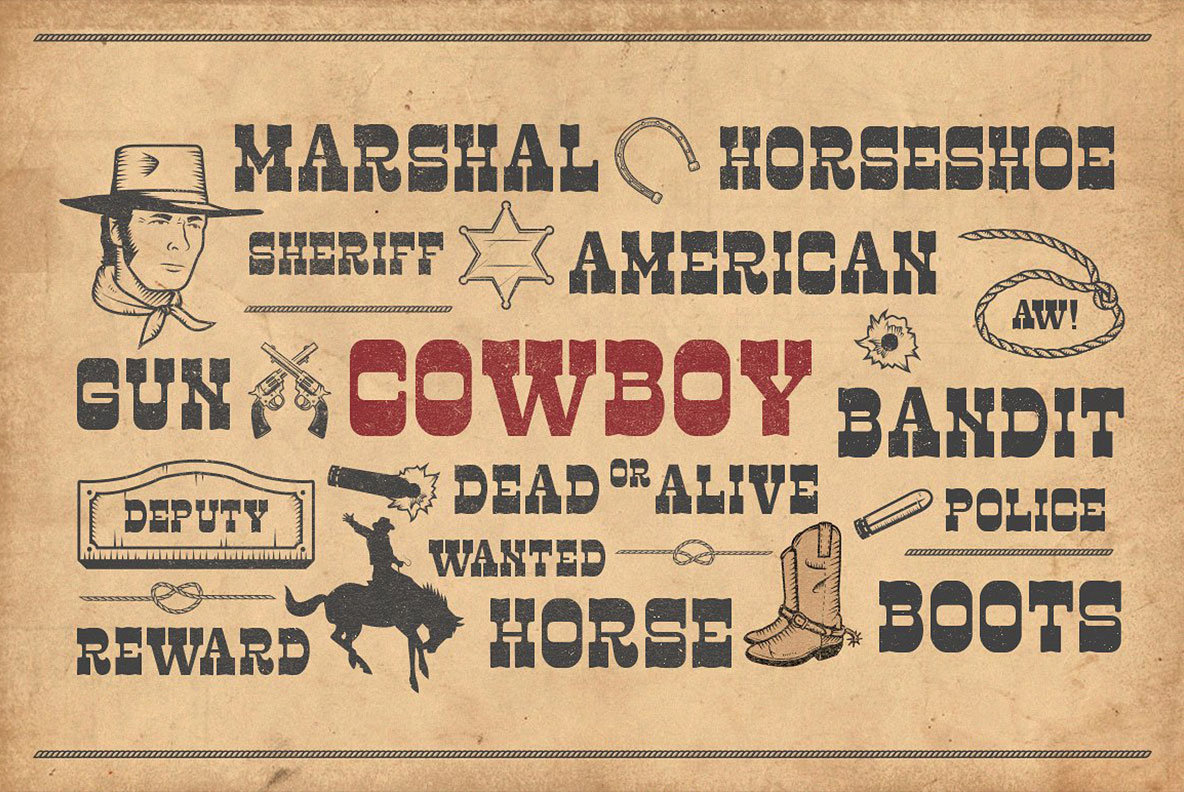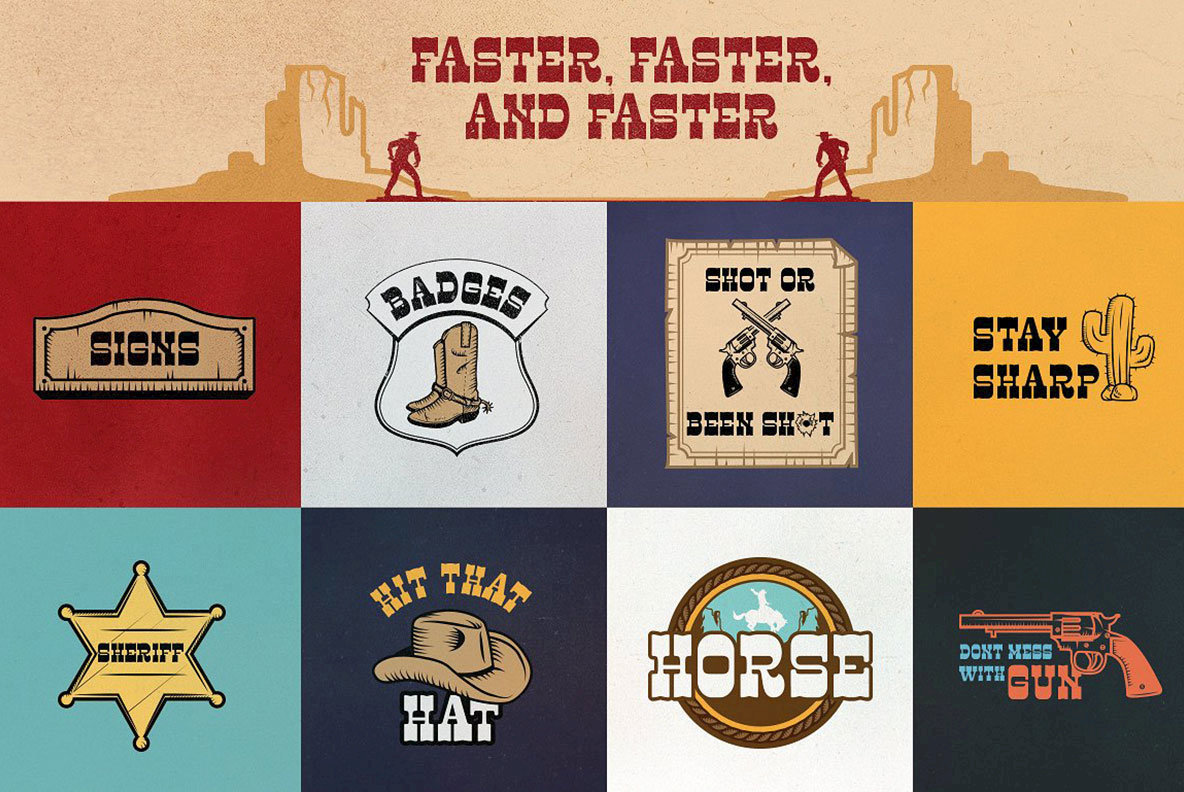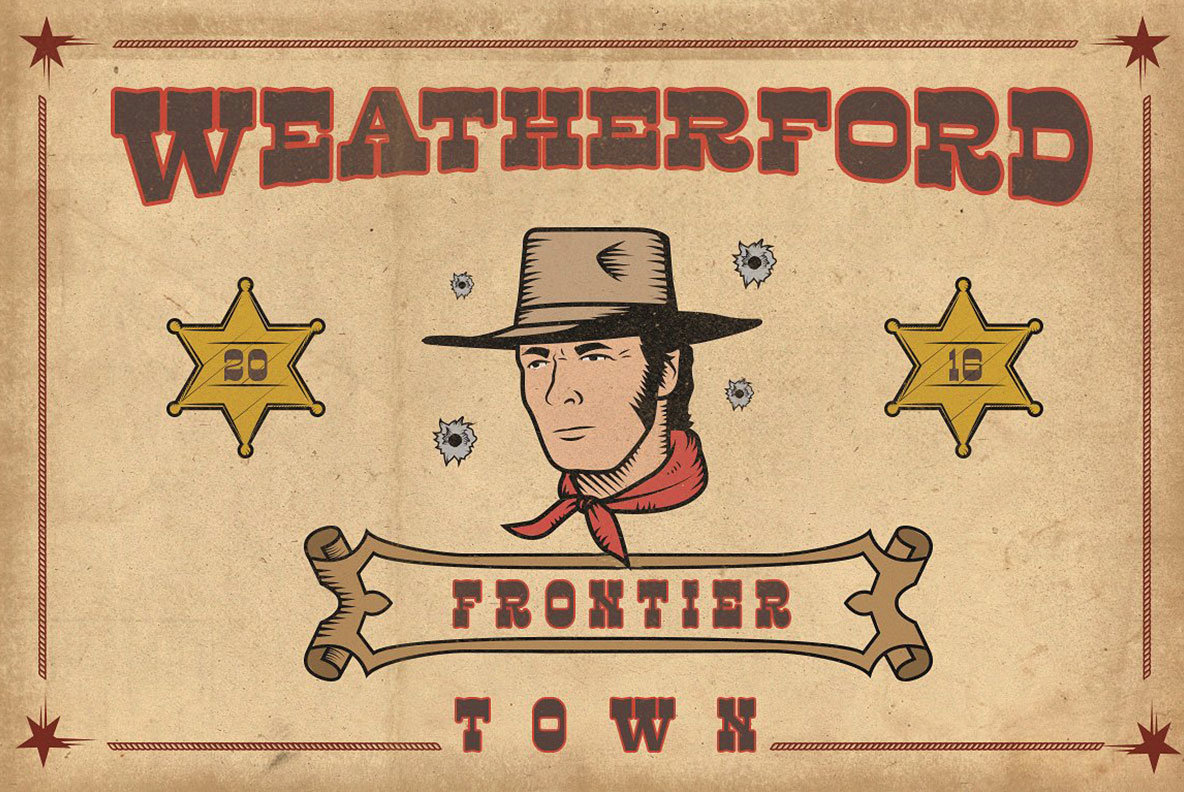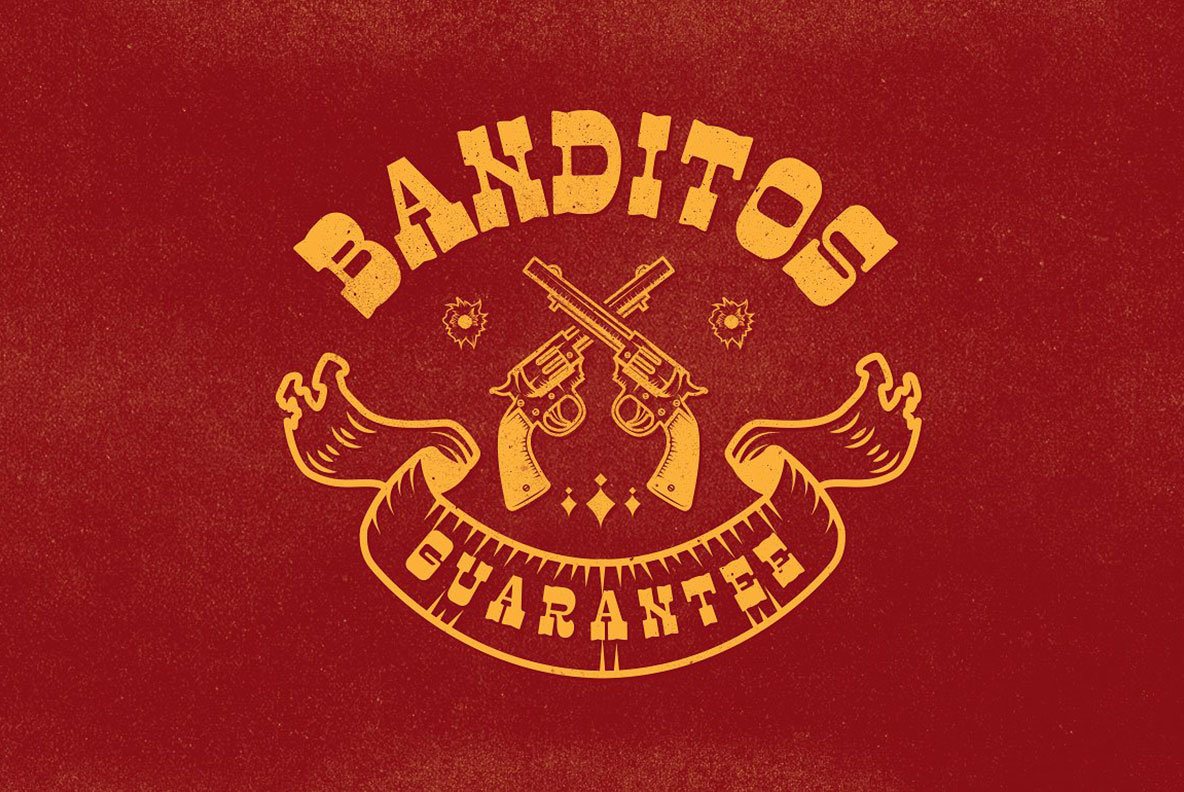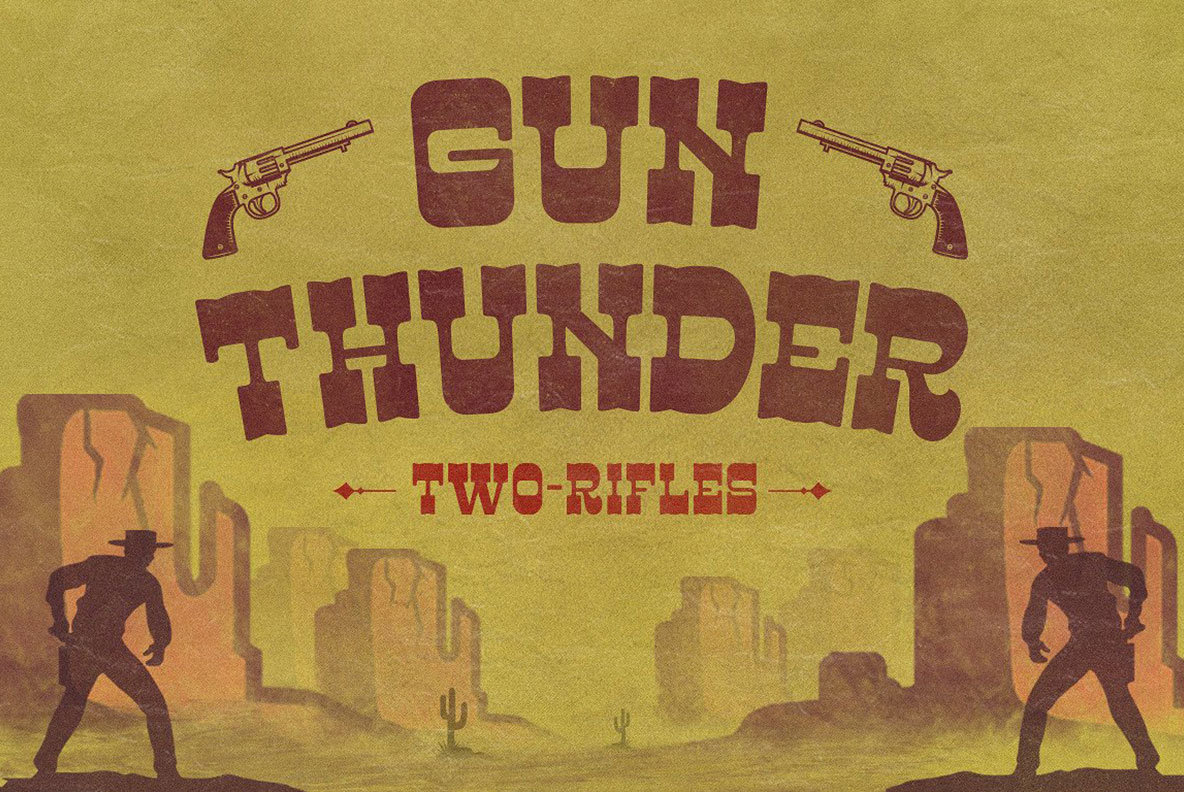
Dafodil Font
Dafodil is a retro and western styled font design published by Flavor Type. Download includes a bonus collection of vector designs, eps format.